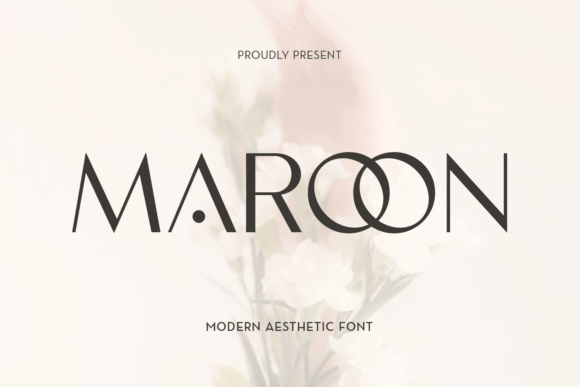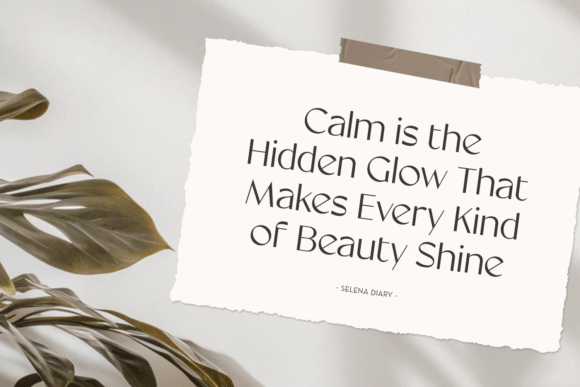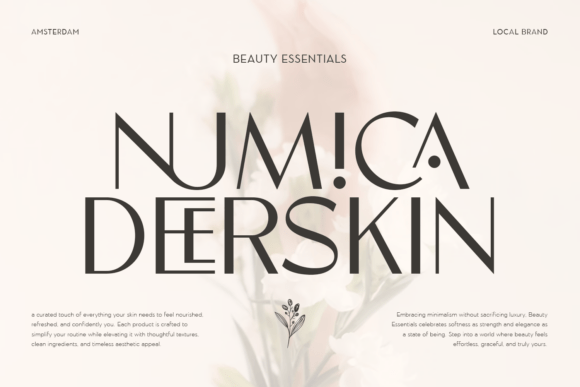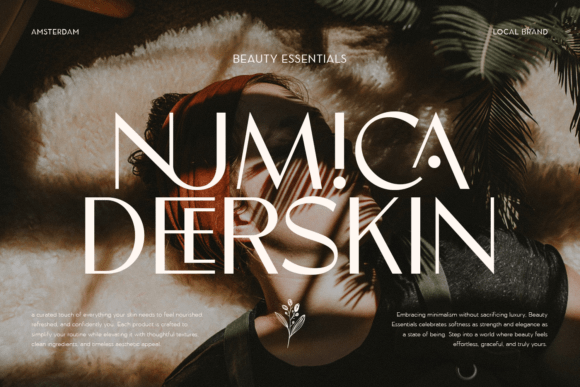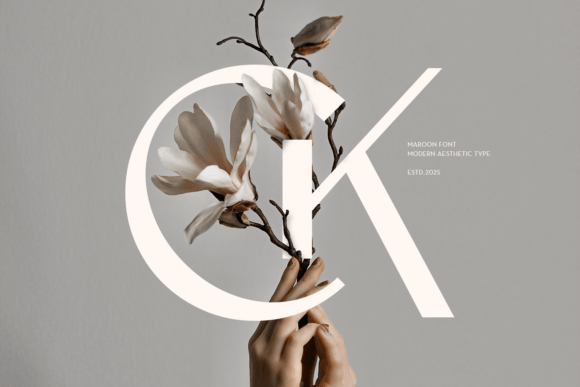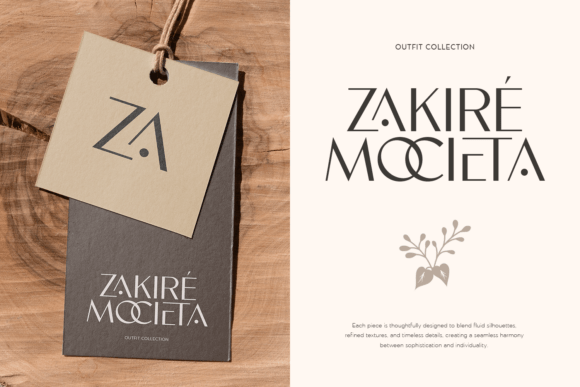
Introduction to Maroon Font
Maroon introduces a luxurious typographic aesthetic crafted specifically for beauty branding and premium visual identities.
Its elegant strokes and refined structure create a polished silhouette, delivering a sophisticated presence in any design Designed to shine in beauty logos, fashion labels, skincare packaging, magazines, and lifestyle branding, Maroon provides a clean yet glamorous look that aligns perfectly with premium aesthetics.